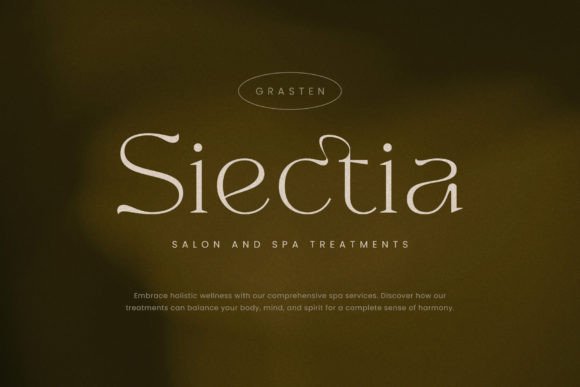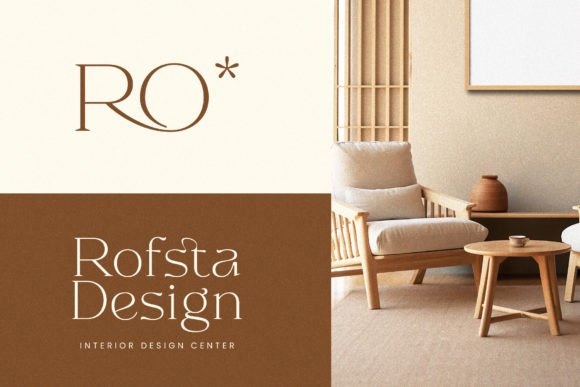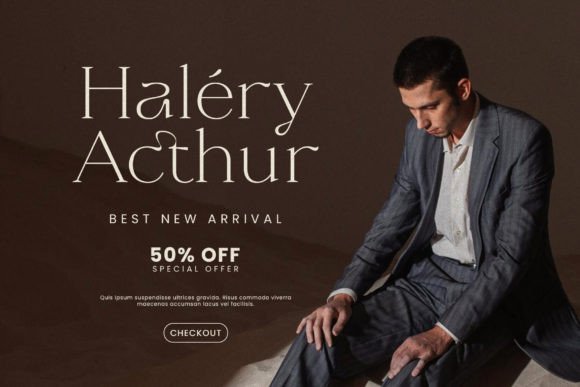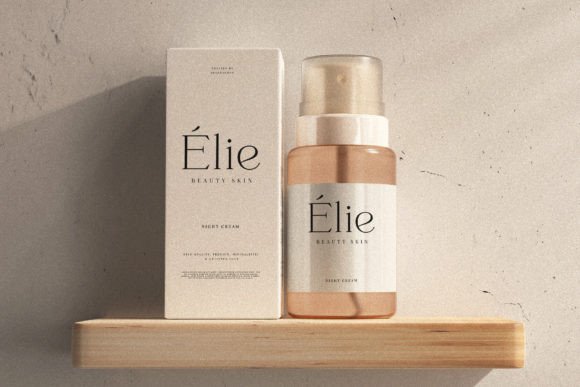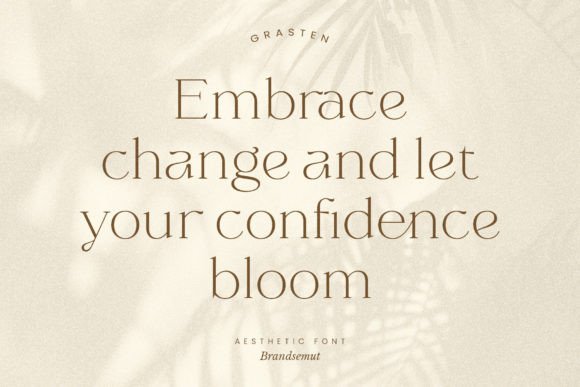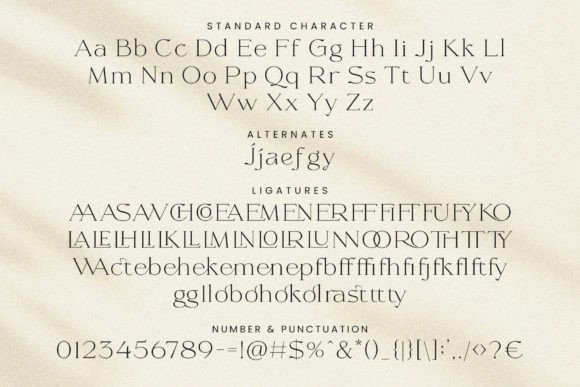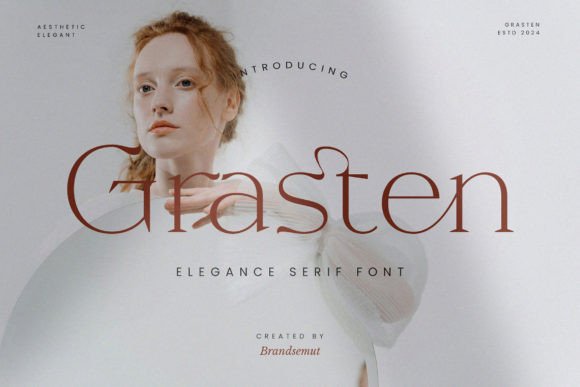
Introducing Grasten Font: Elevate Your Designs with Elegance and Sophistication
In the world of typography, fonts play a crucial role in conveying the tone and personality of a brand or design. For designers and crafters seeking to add a touch of elegance and sophistication to their work, Grasten Font is an excellent choice. This modern display serif font is designed to make a statement, perfect for headings, logos, branding, magazines, product packaging, and invitations.
The Characteristics of Grasten Font
Grasten Font boasts clean lines and smooth curves, giving any project an extra touch of class. Its elegant and classy design makes it an ideal choice for designers who want to create a lasting impression. The font comes equipped with ligatures and many alternates, providing flexibility and versatility in design.
Key Features of Grasten Font
- Elegant and Classy Design: Grasten Font features a modern display serif design that exudes elegance and sophistication.
- Ligatures and Alternates: The font comes with ligatures and many alternates, allowing designers to experiment with different styles and create unique designs.
- Clean Lines and Smooth Curves: Grasten Font’s clean lines and smooth curves give any project a professional and polished look.
- Display Serif Font: Designed specifically for display purposes, Grasten Font is perfect for headings, titles, and short texts.
Use Cases for Grasten Font
Grasten Font is a versatile font that can be used in various design projects, including:
- Headings and Titles: Use Grasten Font to create eye-catching headings and titles that grab attention.
- Logos and Branding: Grasten Font is perfect for creating elegant and sophisticated logos that reflect a brand’s personality.
- Magazines and Editorials: Add a touch of class to your magazine or editorial design with Grasten Font.
- Product Packaging: Use Grasten Font to create beautiful and elegant product packaging that stands out.
- Invitations and Events: Grasten Font is ideal for creating formal and elegant invitations for weddings, parties, and other events.
Why Choose Grasten Font?
With so many fonts available, why choose Grasten Font? Here are a few reasons:
- Unique and Distinctive: Grasten Font offers a unique and distinctive design that sets it apart from other fonts.
- High-Quality Design: The font is designed with high-quality craftsmanship, ensuring that it looks great in any design project.
- Flexibility and Versatility: Grasten Font comes with ligatures and alternates, providing flexibility and versatility in design.
In conclusion, Grasten Font is an excellent choice for designers and crafters seeking to add a touch of elegance and sophistication to their work. With its modern display serif design, clean lines, and smooth curves, Grasten Font is perfect for a variety of design projects. Its versatility, flexibility, and high-quality design make it an excellent addition to any designer’s toolkit.
Whether you’re designing a logo, creating a magazine, or crafting an invitation, Grasten Font is sure to elevate your design and leave a lasting impression.